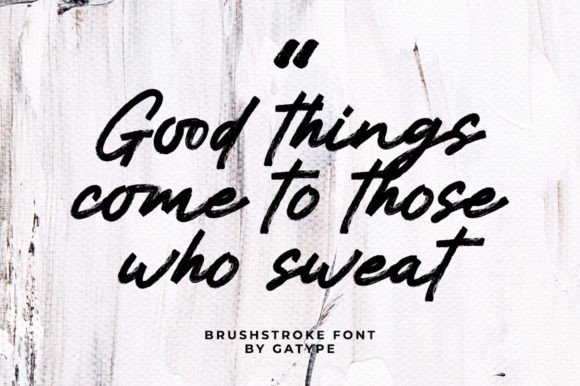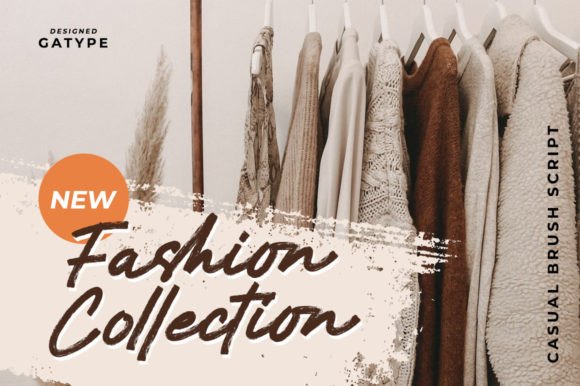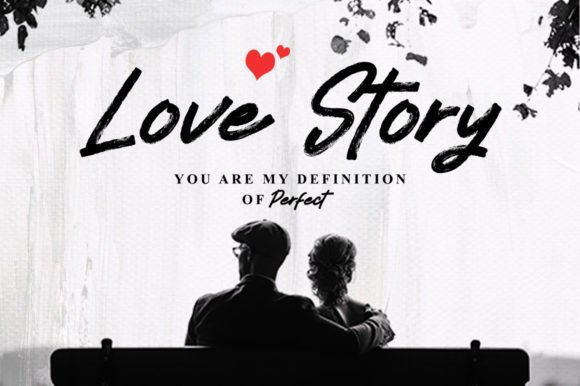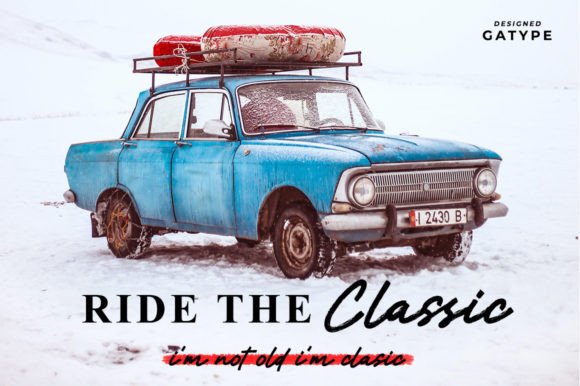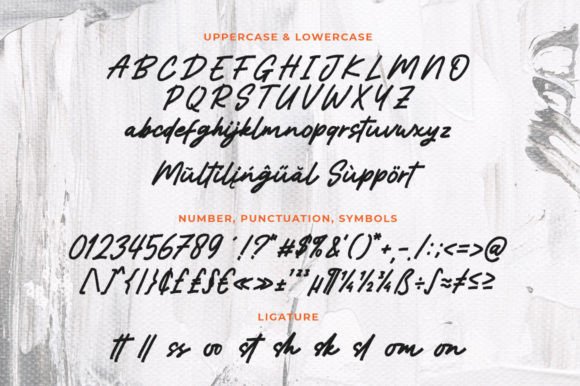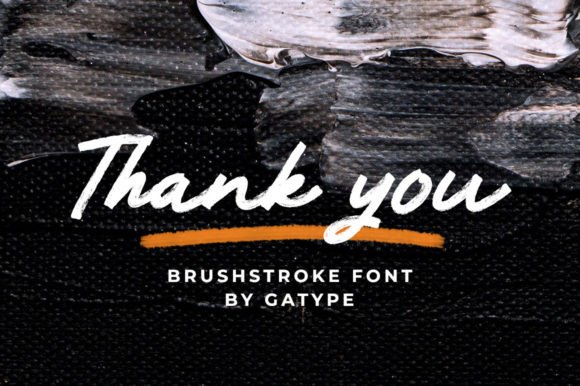
Discover the Magic of Brushstroke Font
You’ve spent hours brainstorming the perfect design concept, poured your heart into every detail, and finally, it’s time to bring it all together with the perfect font. But, what if you could add an extra layer of emotion and personality to your design? That’s where the Brushstroke Font comes in – a unique, textured brush font that will transport your audience to a world of creativity and charm.
Whether you’re a seasoned designer or a creative newbie, the Brushstroke Font is an invaluable addition to your toolkit. Its incredibly versatile style makes it perfect for a wide range of projects, from gorgeous posters and beautiful stationery art to eye-catching social media posts and more. With the Brushstroke Font, the possibilities are endless, and your designs will shine with a level of sophistication and elegance that’s hard to find elsewhere.
Key Features of Brushstroke Font
- Unique Characteristics: The Brushstroke Font features a unique, hand-drawn design with subtle texture and imperfections, giving it a natural, organic feel.
- Style Options: The font includes multiple style options, including regular, italic, bold, and bold italic, allowing designers to create a range of visual effects.
- Language Support: The font supports a wide range of languages, including Latin, Cyrillic, and Greek, making it suitable for global design applications.
Brushstroke Font Review
Overall, I’d say the Brushstroke Font is a solid choice for designers looking to add a touch of hand-drawn charm to their projects. ✨ The font’s unique, brush-like strokes give it a distinct personality that’s perfect for creative industries like advertising, fashion, and art.
The Brushstroke Font is available in a range of weights and styles, from light and delicate to bold and dramatic. This makes it incredibly versatile and suitable for a wide range of applications, from headings and titles to body text and quotes.
- ✨ Unique, hand-drawn style that adds a touch of personality to projects
- ✨ Available in a range of weights and styles for maximum versatility
- ✨ Suitable for a wide range of applications, from headings to body text
- ⚠️ Limited legibility in very small text sizes
- ⚠️ May not be suitable for formal or technical writing
- ⚠️ Some characters may not be perfectly aligned or spaced
Overall, the Brushstroke Font is a great choice for designers looking to add a touch of creativity to their projects. While it may have some limitations, its unique style and versatility make it a valuable addition to any designer’s toolkit.
Tips for Getting the Most Out of Brushstroke Font
To get the most out of Brushstroke font, use it for:
- Creating a vintage or distressed look.
- Adding a handmade feel to your designs.
- Creating a unique and eye-catching headline.
Brushstroke font is commonly used for:
- Invitations and event graphics.
- Editorial and publishing projects.
Alternatives to Brushstroke Font for Designers
Lobster is a script font that mimics handwritten text. It’s ideal for use in titles, headings, and other emphasis points where a casual, yet elegant feel is desired.
Compared to Brushstroke Font, Lobster has a more refined and polished look, making it suitable for professional applications. However, it lacks the organic, brush-like feel of Brushstroke Font.
Carolyna Pro is a modern script font designed for use in various applications, from branding to publishing. It’s perfect for creating a sophisticated, high-end look.
Similar to Brushstroke Font, Carolyna Pro has a fluid, connected feel. However, it has a more refined and precise appearance, making it suitable for use in formal settings.